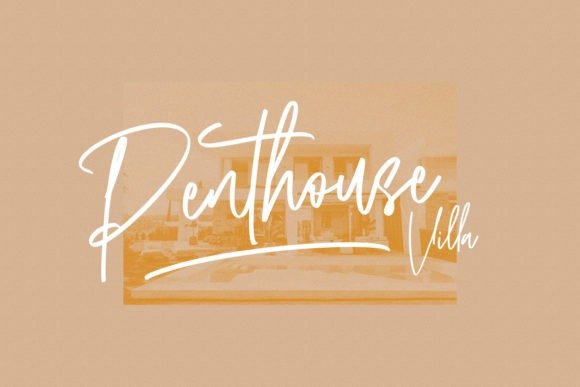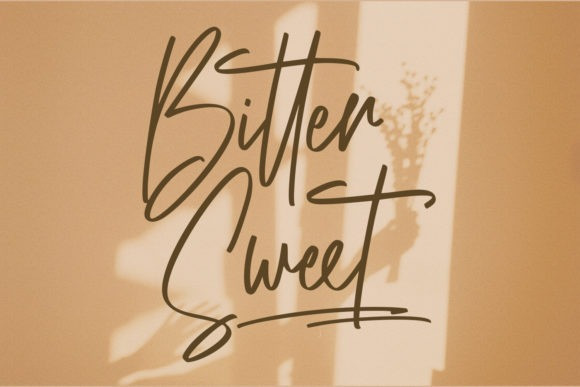
The Billvort Brush Font
The Billvort is a flowing handwritten font, described by an elegant touch, perfect for your favorite projects. Fall in love with its incredibly distinct and timeless style and use it to create spectacular designs!